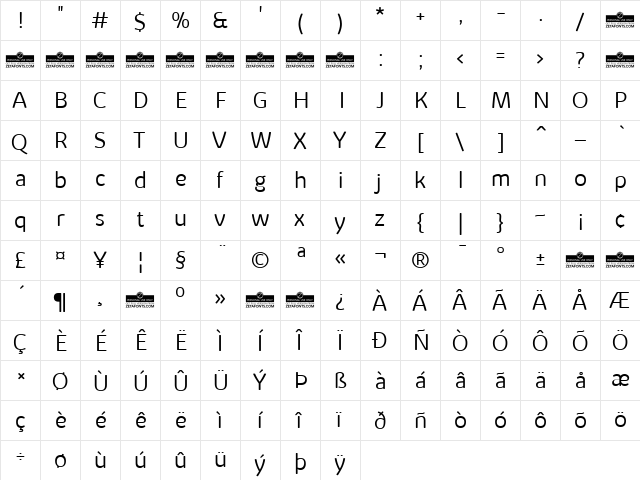
Kabrio Alternate Light
| Foundry | studio kmzero |
| Designer | Corimo Lorenzo Pancini |
Design Context for Kabrio Alternate Typeface
Kabrio Alternate offers clean, dependable letterforms without strong stylistic allegiance, making it a practical choice for designers who need flexibility. Its slender proportions lend an understated elegance to any composition.